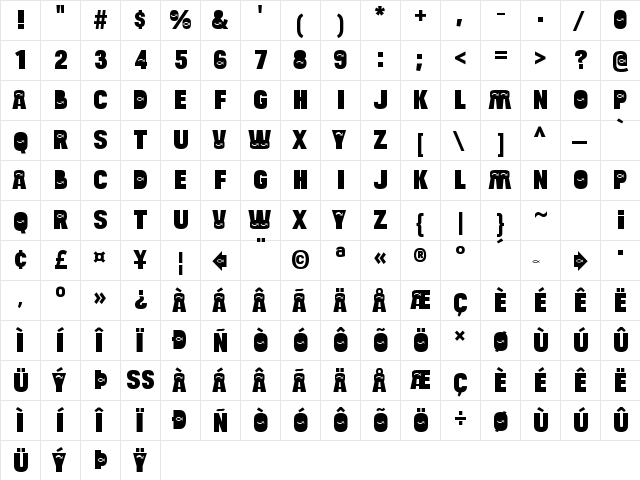
Bulltoad JFish Regular
Design Context for Bulltoad JFish Typeface
Bulltoad JFish is a composed and adaptable typeface that performs quietly and consistently across a wide range of design contexts.